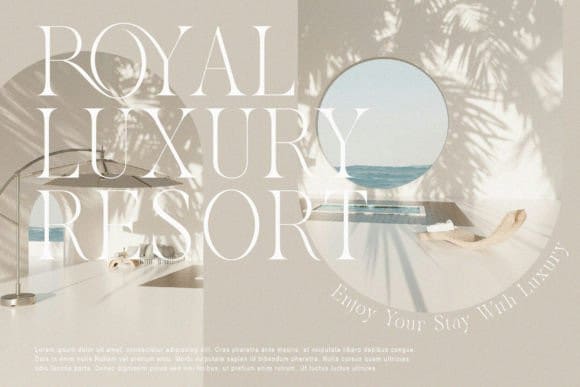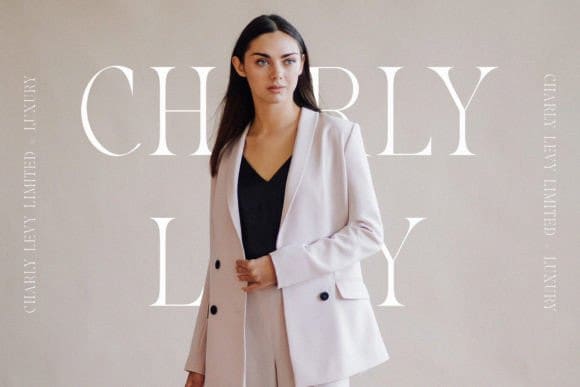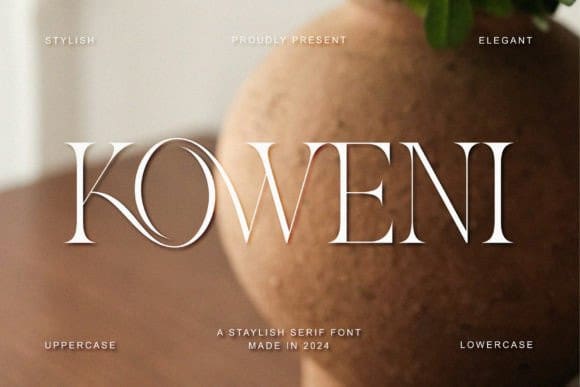
Koweni Font
Koweni Font: An elegant and modern serif typeface. With its modern and minimalist appearance, Koweni brings a luxurious and clean style to your projects such as websites, modern logos, branding identities, social media quotes, wedding stationery, and various other needs!
Koweni displays the capital letters A to Z which are unique and classy of course because they are made with great care so that they become beautiful fonts and can be adapted to various large projects that you want.